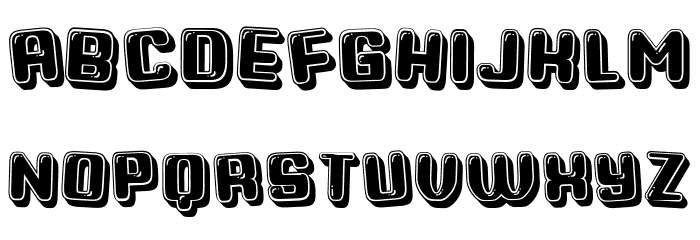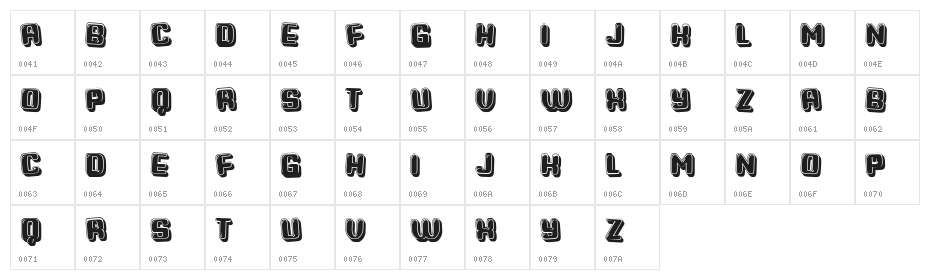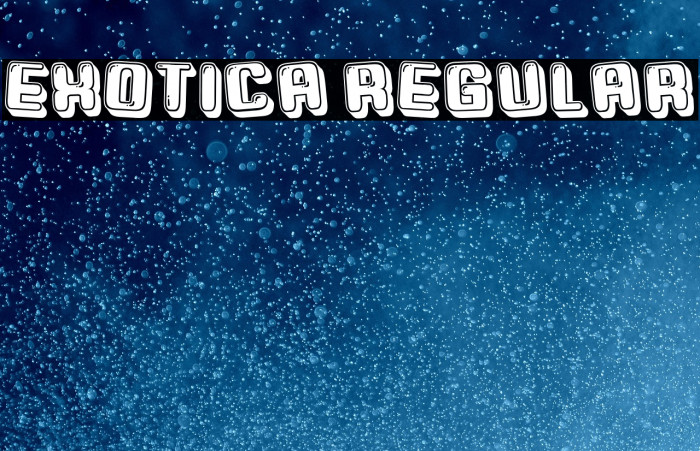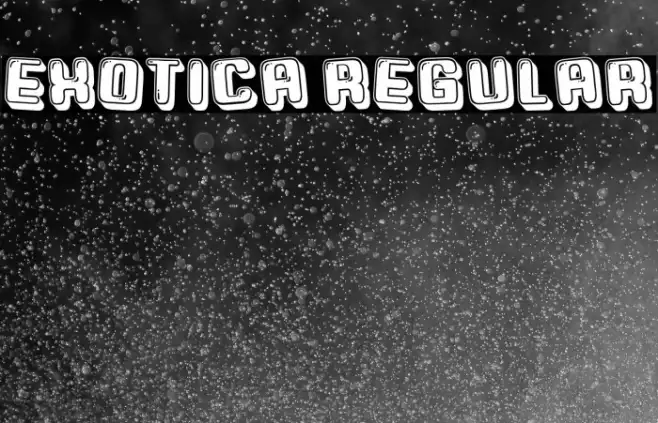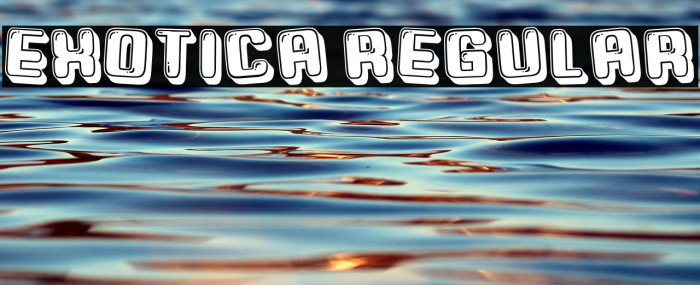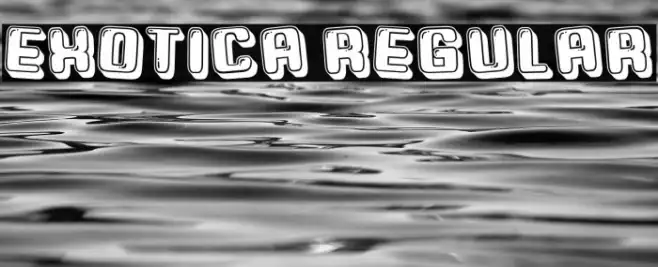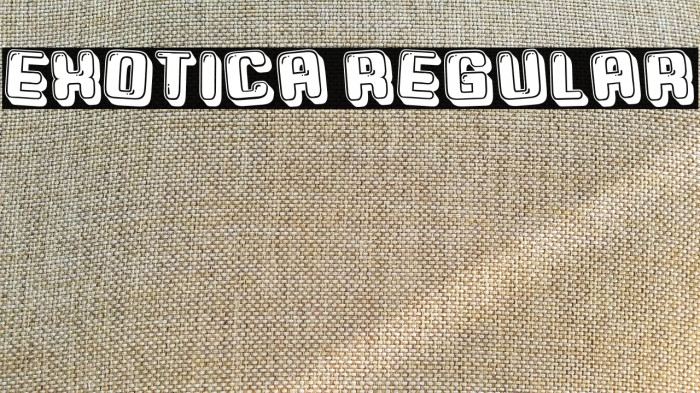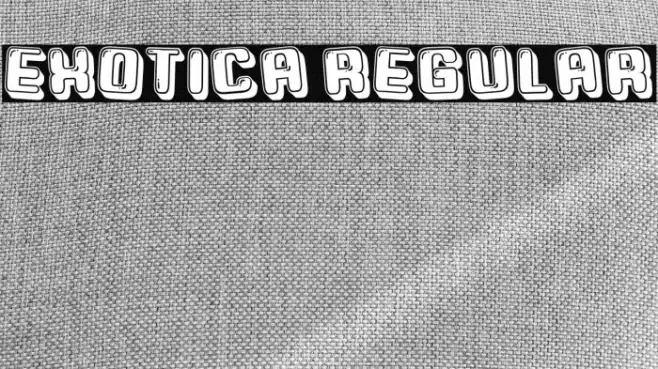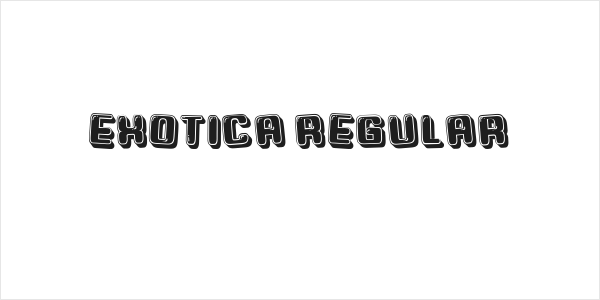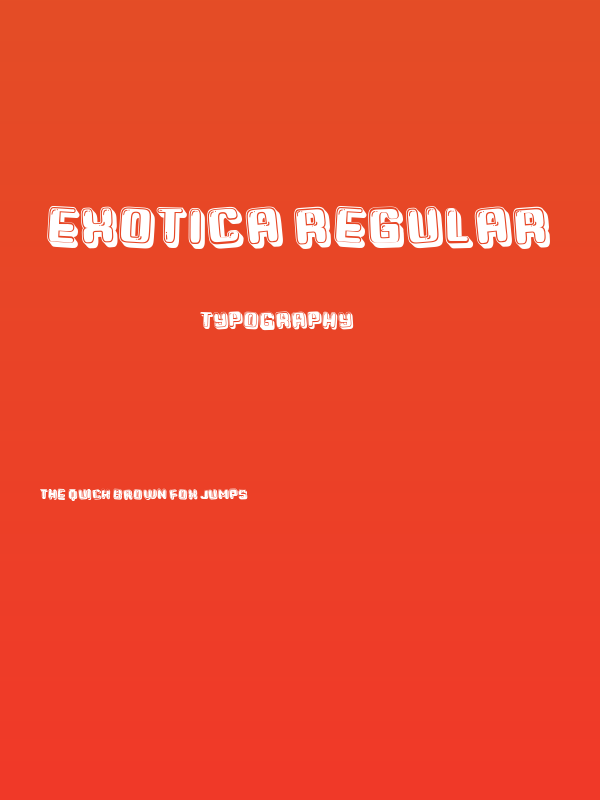
Exotica Regular Font
Exotica Regular Description
This font features a bold, playful style with a three-dimensional effect created by a thick outline and shadow. The characters are uppercase and have a rounded, bubble-like appearance, giving them a friendly and approachable feel. The design is consistent across all letters, maintaining a uniform height and width, which contributes to its cohesive look. The shadow effect adds depth, making the letters stand out, ideal for eye-catching designs. The font's unique style makes it suitable for creative projects that require a fun and engaging visual element.
Overall StylePlayful, Modern
Proposed ProjectsIdeal for children's book covers, playful branding, posters, and event invitations.